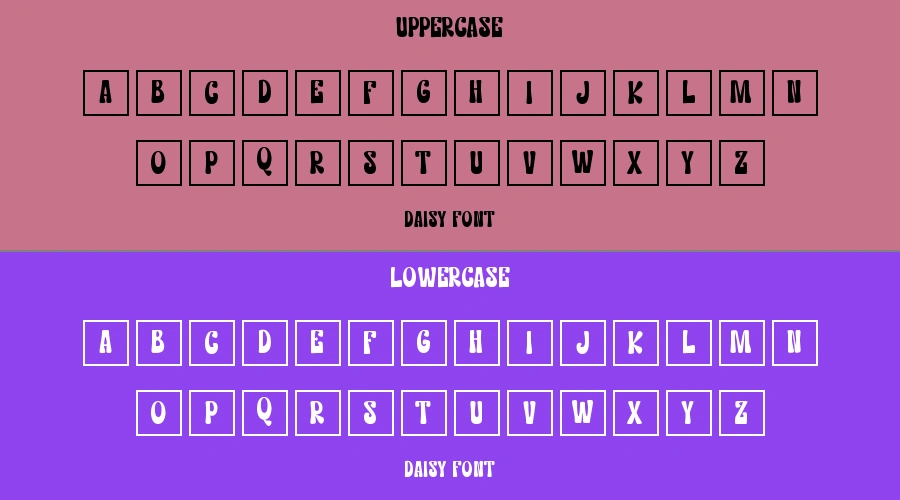
About Daisy Font
Daisy Font embodies typographic excellence through its masterful combination of brush influence and originality. Created for corporate identity, this typeface delivers exceptional durability and user trust across all applications. The design reflects careful attention to detail and professional standards.
Advanced capabilities include distinctive teardrop terminals and versatile mathematical symbols, giving designers creative control. When used in business cards, Daisy Font exhibits remarkable weight distribution. The harmonious balance between terminal style and emotional appeal sets this typeface apart.